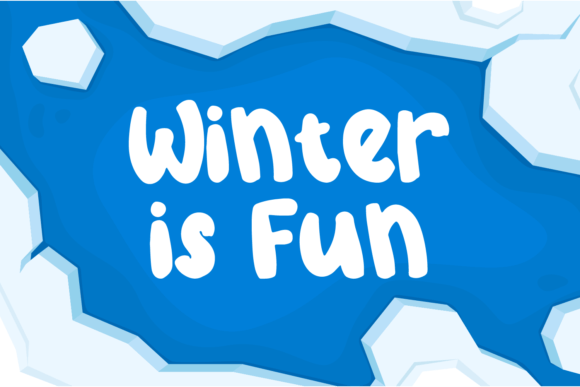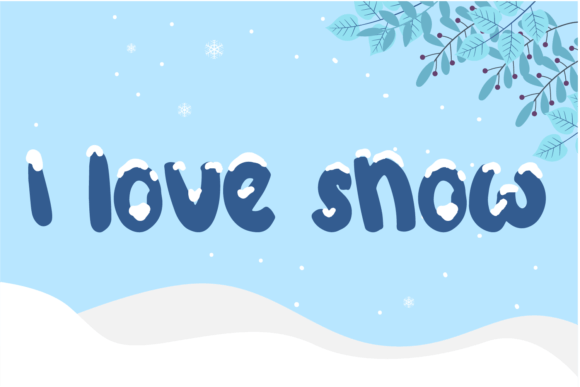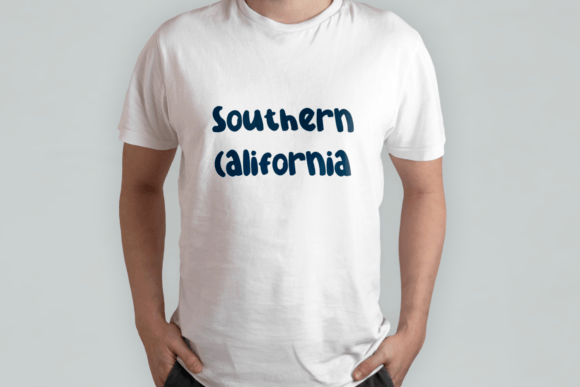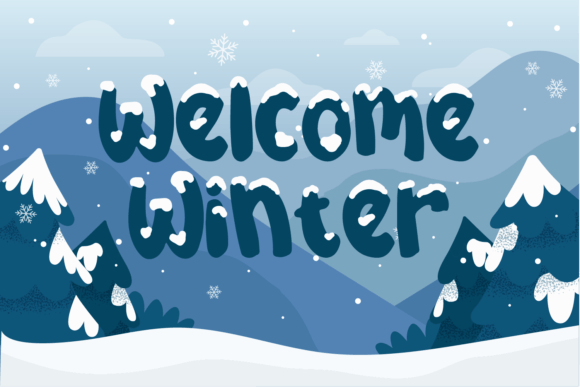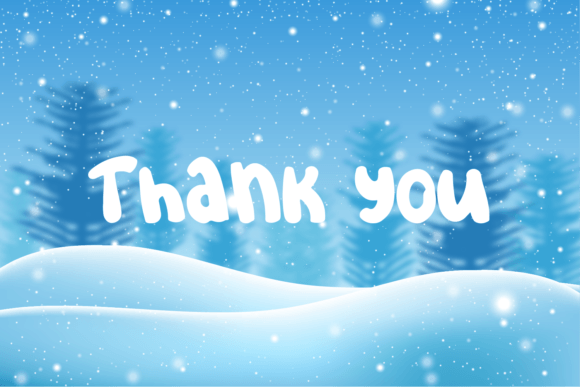
Cold Cabin Font: Elevate Your Winter-Themed Designs with a Fun and Bold Display Font
Are you looking for a font that can add a touch of creativity and fun to your winter-themed designs? Look no further than Cold Cabin Font! This bold display font is carefully crafted to bring a unique and artistic flair to your projects, making it perfect for designers and crafters alike. In this article, we’ll explore the features and benefits of Cold Cabin Font, and how it can help take your designs to the next level.
A Fun and Creative Font for Winter-Themed Designs
Cold Cabin Font is a fun and bold display font that’s specifically designed for winter-themed projects. Whether you’re creating designs for Instagram, DIY projects, or any other type of creative endeavor, this font is sure to impress. Its unique and artistic style is carefully crafted to add a touch of creativity to your designs, making it perfect for projects that require a bit of personality.
Snow Overlays: Take Your Designs to the Next Level
One of the standout features of Cold Cabin Font is its Snow Overlays. Each letter comes with its own snow overlay, allowing you to add an extra layer of depth and dimension to your designs. This feature is perfect for designers who want to create visually striking designs that capture the essence of winter. With Snow Overlays, you can create designs that are truly one-of-a-kind and eye-catching.
Cold Cabin Font is incredibly versatile and can be used for a wide range of projects. Whether you’re creating logos, branding materials, posters, social media content, or websites, this font is sure to fit the bill. It’s also perfect for DIY projects, such as crafting, scrapbooking, and card making. The font’s bold and playful style makes it perfect for projects that require a bit of personality and whimsy.
Some Project Ideas for Cold Cabin Font
- Logos and branding materials for winter-themed businesses
- Posters and flyers for winter events and festivals
- Social media content, such as Instagram posts and Facebook graphics
- Websites and blogs with a winter theme
- YouTube thumbnails and video graphics
- Mood boards and inspiration boards for winter-themed projects
- Wedding invitations and stationery with a winter theme
- DIY projects, such as crafting, scrapbooking, and card making
Why Choose Cold Cabin Font?
So why choose Cold Cabin Font for your winter-themed designs? Here are just a few reasons:
- Unique and artistic style: Cold Cabin Font has a unique and artistic style that’s sure to stand out from the crowd.
- Versatile: Cold Cabin Font can be used for a wide range of projects, from logos and branding materials to social media content and DIY projects.
- Snow Overlays: The Snow Overlays feature adds an extra layer of depth and dimension to your designs, making them truly one-of-a-kind.
| Font Name | Cold Cabin Font |
| Author | Helotype |